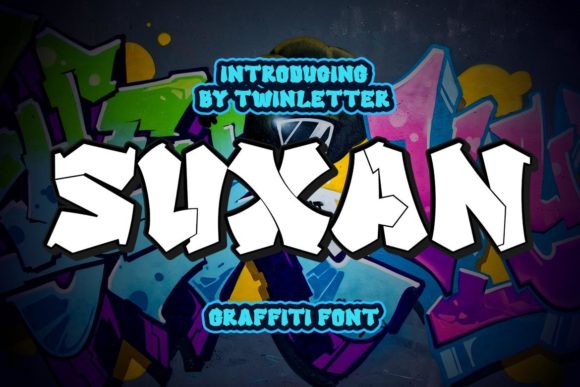
Journey into the realm of urban expression with Suxan Font, a captivating display font brimming with personality and edge. Its bold graffiti-inspired strokes exude a raw, rebellious energy that's sure to leave an indelible mark on your designs. Unleash your creativity and let Suxan ignite your imagination, whether you're crafting eye-catching labels, establishing a standout brand identity, or creating rap covers that demand attention.
In a world saturated with ordinary fonts, Suxan stands out as a beacon of individuality, a font that refuses to conform to the mundane. Its distinctive urban flair lends itself effortlessly to designs that crave a touch of grit and authenticity. Picture your designs adorned with Suxan's bold letters, captivating your audience with their raw, unyielding presence.
Suxan's versatility is a testament to its boundless creative potential. Its bold strokes command attention on labels, leaving a lasting impression on consumers. It effortlessly elevates branding efforts, imbuing them with a sense of urban sophistication that sets your brand apart from the competition. And when it comes to rap covers, Suxan takes center stage, demanding attention with its larger-than-life persona.
With Suxan, the possibilities are infinite. Its urban-inspired aesthetic effortlessly complements designs that seek to evoke a sense of rebellion, freedom, and individuality. It's the perfect choice for capturing the essence of street culture, adding a touch of edginess to posters, flyers, and social media graphics.